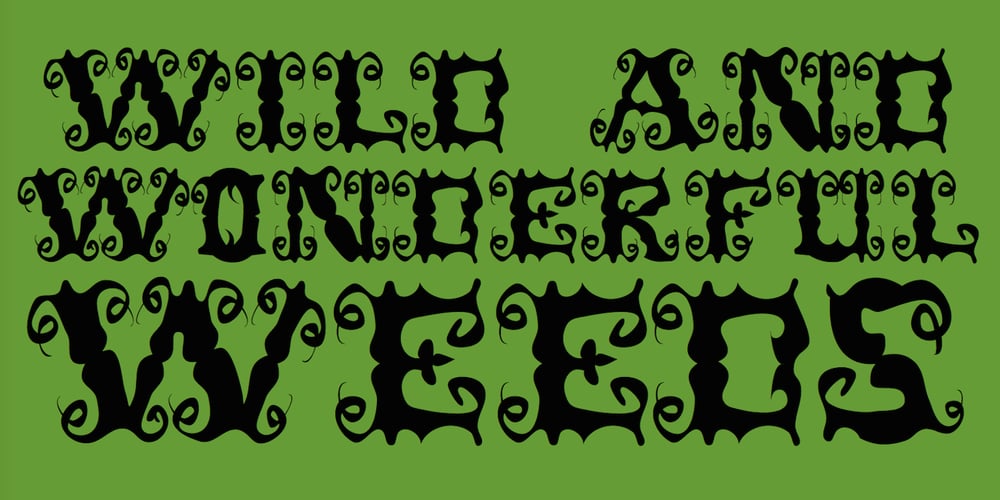
ShirlyUJest Font Family was designed by Robert Schenk and published by Ingrimayne Type. ShirlyUJest contains 1 styles and family package options. The letters of ShirlyUJest have serifs that have gone wild, crossing over themselves, giving them the look of overgrown vegetation. It is weird and bizarre and out of control; the name says it all. It is caps-only with the lower-case keys containing the glyphs identical to those on the upper-case keys.